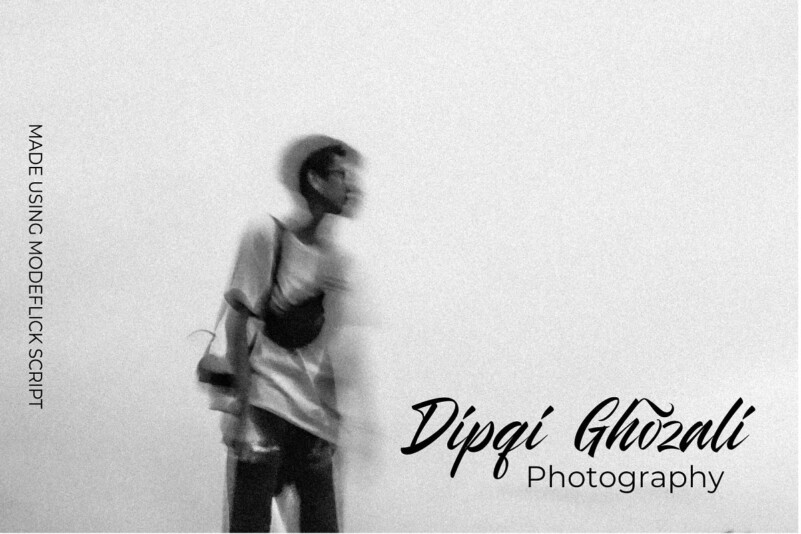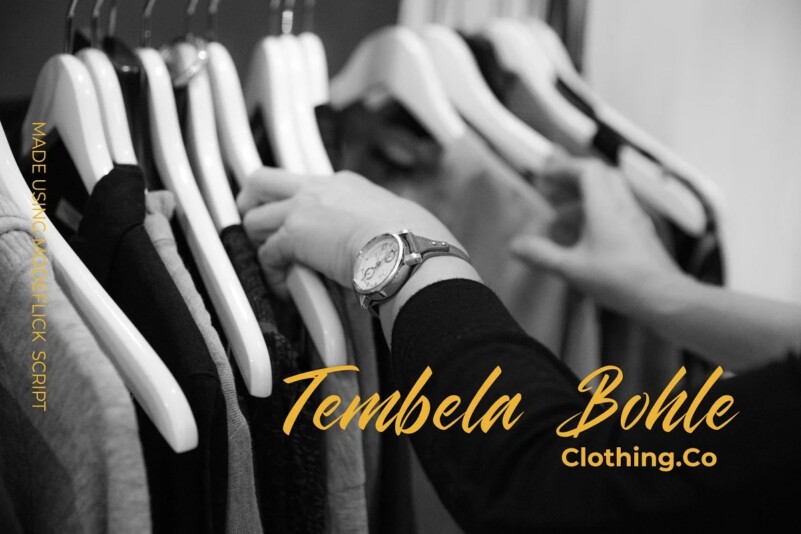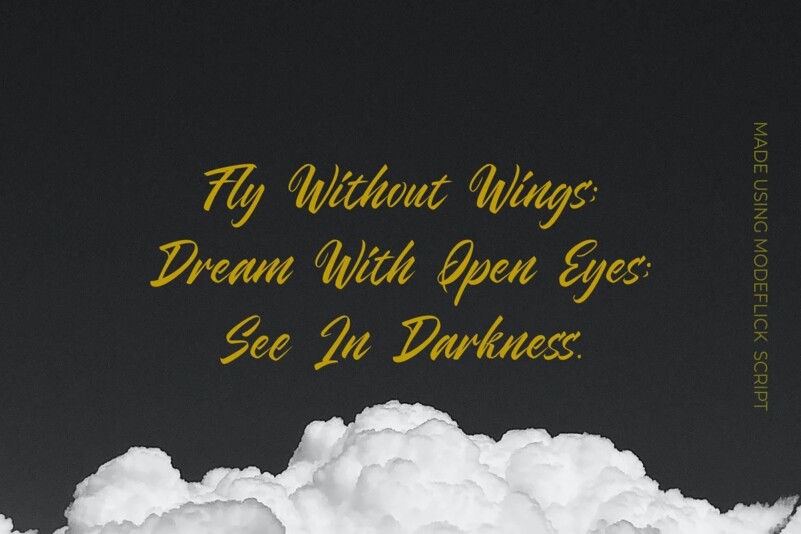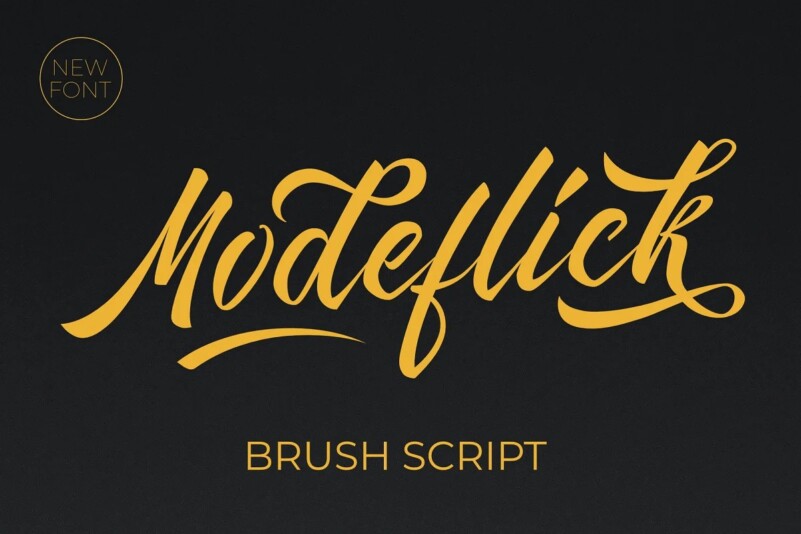
Modeflick Font is a vintage-inspired typeface from Astageni that is perfect for creating classic design projects. This font perfectly made to be applied especially in logo, and the other various formal forms such as invitations, labels, logos, magazines, books, greeting / wedding cards, packaging, fashion, make up, stationery, novels, labels or any type of advertising purpose.